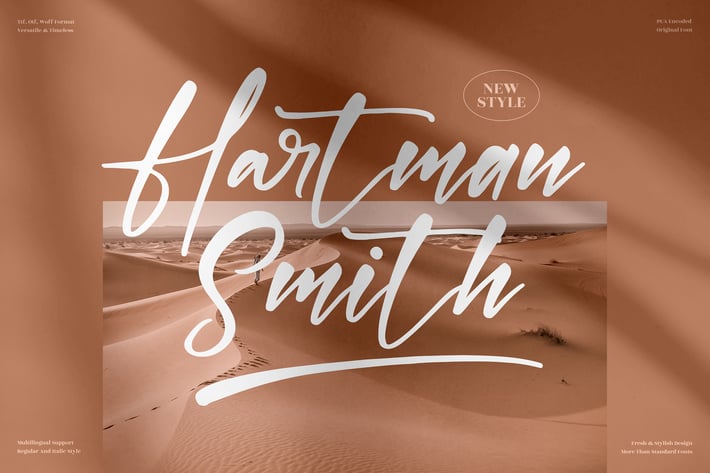
Hartman Smith Handwritten Font
Hartman Smith is a bold handwritten script font with energetic brush strokes and a modern, expressive flow. Its dynamic movement and natural texture give every design a personal, handcrafted vibe—perfect for branding, lifestyle visuals, and social media content that needs a confident yet warm handwritten touch.
Strong handwritten brush style with natural texture
Smooth curves and bold strokes for eye-catching visuals
Great readability across both large and small sizes
Includes stylistic alternates for added expression
Lifestyle & fashion branding
Signature-style logos & product labels
Posters, quotes, and social media designs
Packaging for beauty, coffee, or artisan goods
Creative promotions and personal projects
Where bold handwritten energy meets modern visual storytelling.*